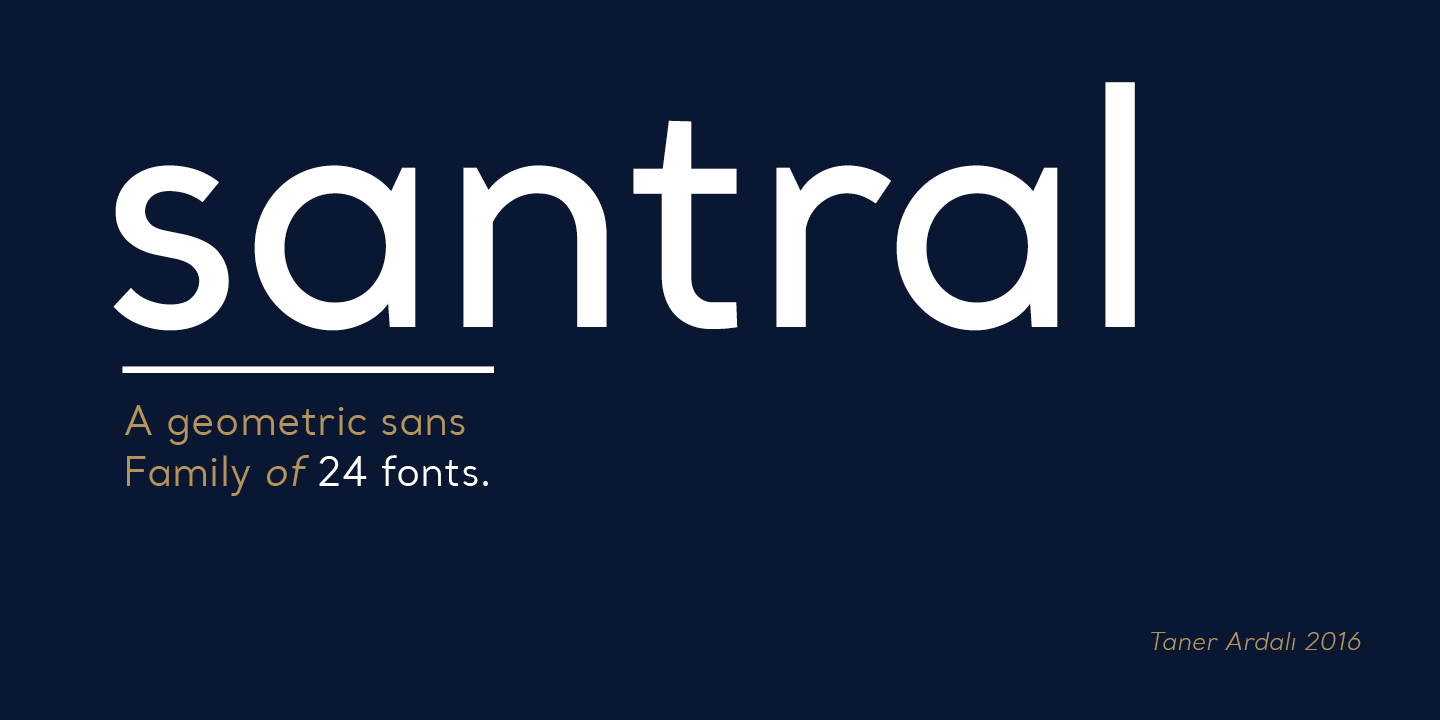
The Santral Font excels in various design applications including central hub branding, transportation system communications, metropolitan transit signage, urban planning presentations, civic institution identities, public service announcements, municipal government communications, infrastructure project materials, city center developments, and community-focused design projects that demand clarity and authoritative presence.
What makes the Santral Font exciting is its embodiment of centralized authority and systematic organization through letterforms that suggest reliability, connectivity, and institutional strength. This typeface captures the essence of central command and coordinated systems through carefully balanced characters that convey stability, trustworthiness, and professional competence. The font's authoritative personality makes it perfect for organizations and institutions seeking to communicate central leadership, systematic efficiency, and public service excellence through typography that instills confidence and demonstrates organizational capability.
The Santral Font family typically includes multiple weight variations designed for optimal legibility in public signage applications, featuring condensed and extended variants that accommodate diverse spatial requirements. These family options often include specialized characters for municipal use, transportation symbols, and institutional elements that enhance the font's utility for public sector communications and civic branding applications.
Public sector professionals and municipal organizations consistently choose Santral Font Free Download for projects requiring typography that communicates institutional authority and public service reliability. This typeface delivers exceptional performance in government communications, transportation systems, and civic branding where establishing public trust and demonstrating organizational competence is essential for community engagement. The font's systematic character makes it particularly effective for wayfinding systems and public information displays. Download Santral Font Free Download today to access this authoritative typeface that transforms institutional communications with its systematic precision and civic sophistication, creating compelling visual experiences that demonstrate public service excellence and organizational reliability while maintaining optimal clarity for diverse community audiences.